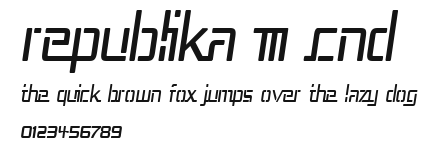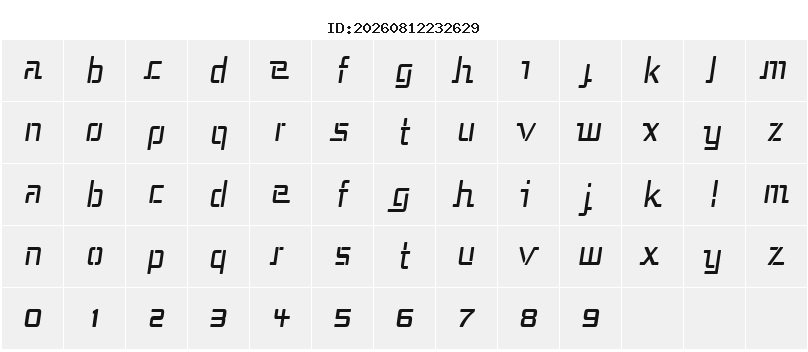
Republika III Cnd Preview
• Font Name: Republika III Cnd
• Full Font Name: Republika III Cnd Italic
• Designer: Apostrophe
About Republika III Cnd.ttf
Republika III Cnd.ttf is a modern, elegant sans-serif font designed for ultimate readability and visual harmony. Perfect for branding, headlines, web design, and print materials.